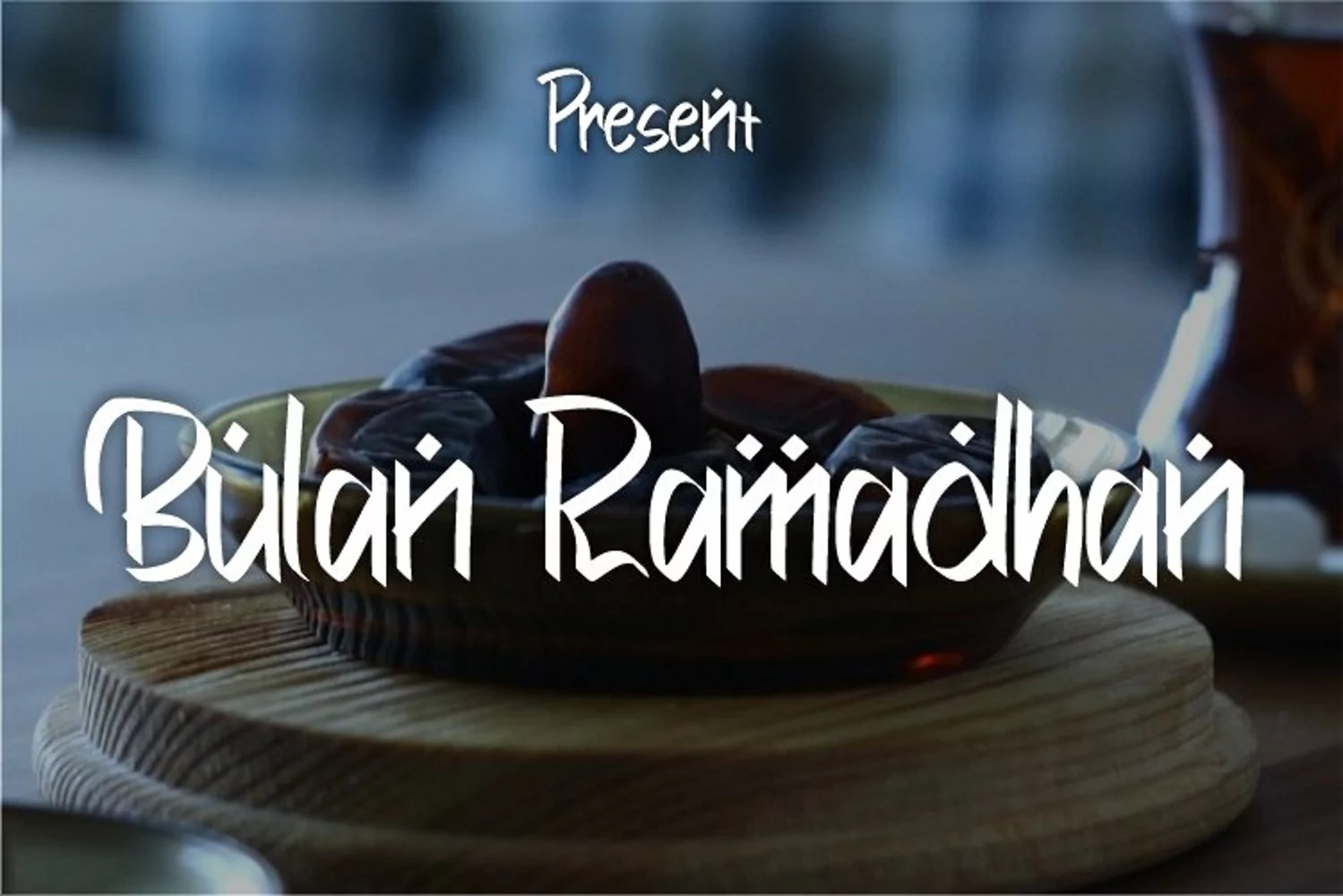
Bulan Ramadhan
Bulan Ramadhan is a script typeface that has a simple style & modern look.
This typeface is perfect for an elegant & luxurious logo, book or movie
design titles, fashion brands, magazines, clothing, fonts, quotes and more.